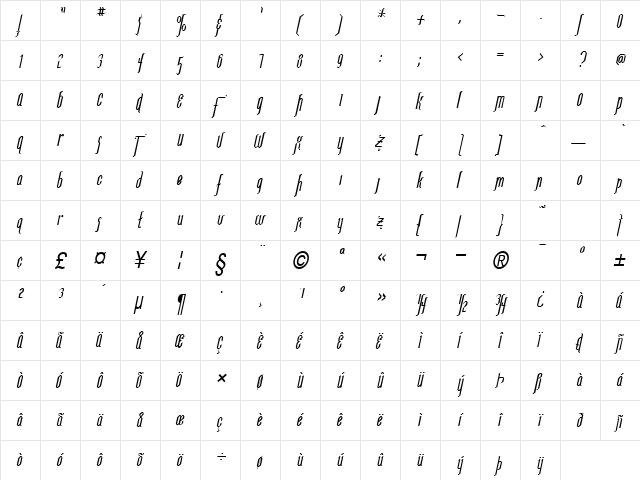
Ipswich Italic
Design Context for Ipswich Typeface
Ipswich offers clean, dependable letterforms without strong stylistic allegiance, making it a practical choice for designers who need flexibility. The slanted form adds forward momentum and visual energy.
Pro Tip: Try Ipswich for annotation and caption copy alongside an upright companion — the contrast in angle creates a dynamic but ordered typographic system.